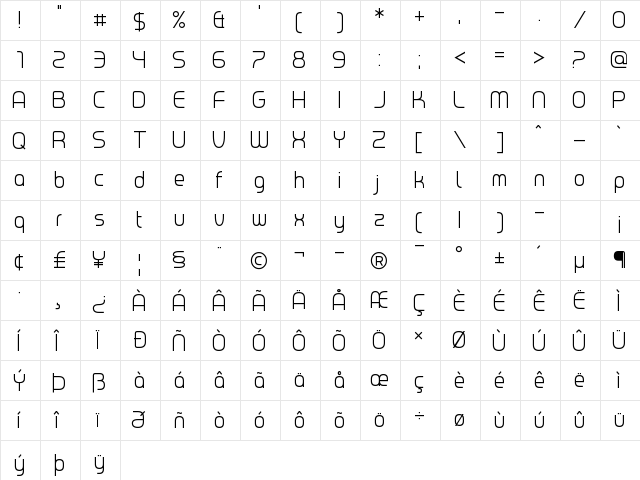
Chrobot Regular
Design Context for Chrobot Typeface
Chrobot is a composed and adaptable typeface that performs quietly and consistently across a wide range of design contexts.